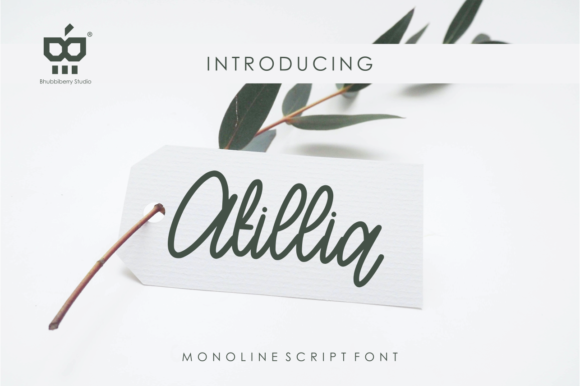
I still remember the frustration of working on a project, hours spent perfecting every detail, only to be held back by one thing: the font. It was as if I was searching for a needle in a haystack, scrolling through endless pages of fonts, none of which seemed quite right. My client was waiting, and I was stuck. That’s when I discovered Atillia Font – a game-changer that transformed my design process and became my go-to for projects that demand a touch of elegance.
Atillia Font: A Masterpiece of Modern Calligraphy
Atillia is an exquisite handwritten font, masterfully designed to become a true favorite. It maintains its classy calligraphic influences while feeling contemporary and fresh. With Atillia, you can elevate your projects to new heights and add a touch of sophistication that sets them apart.
• 💫 Exquisite calligraphic details that add a touch of luxury to any project
• 🎨 Versatile and adaptable to various design styles and industries
• 📚 Extensive character set, including OpenType features and glyphs
• ⚠️ Some users may find the font a bit too ornate for very casual or playful projects
• 🤔 Limited availability of certain characters or alternates in non-OpenType compatible software
The Story Behind Atillia: A Glimpse into Its Design Inspiration
Atillia was created with the goal of crafting a modern, calligraphic font that would bring a touch of sophistication to any design project. Its designer, inspired by traditional calligraphy and handwriting, aimed to create a font that would feel both classic and contemporary. The result is a versatile and elegant font that has captured the hearts of designers and crafters alike.
Font Name Atillia Font
Author bhubbiberrystudio
Q: What makes Atillia Font unique?
A: Atillia’s unique blend of traditional calligraphy and modern sensibilities sets it apart from other fonts. Its exquisite details and extensive character set make it an excellent choice for designers seeking a sophisticated font.
Q: Is Atillia suitable for body text?
A: While Atillia is highly legible, it’s primarily designed for headings, titles, and short paragraphs. For longer body text, you may want to consider a more straightforward font.